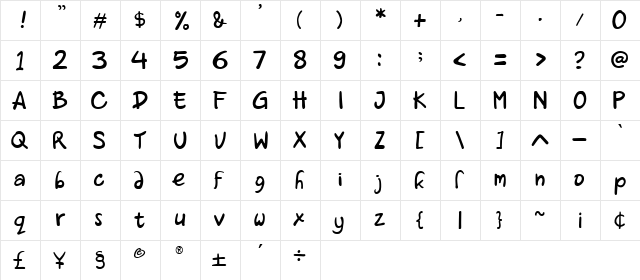
Alohay Regular Regular
Design Context for Alohay Regular Typeface
Alohay Regular is a composed and adaptable typeface that performs quietly and consistently across a wide range of design contexts.